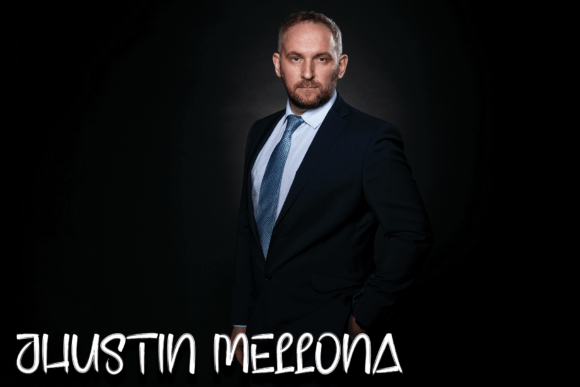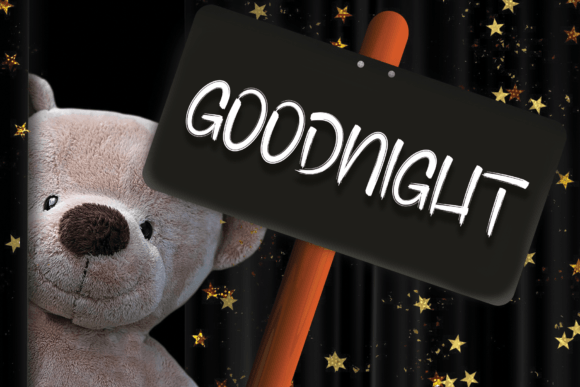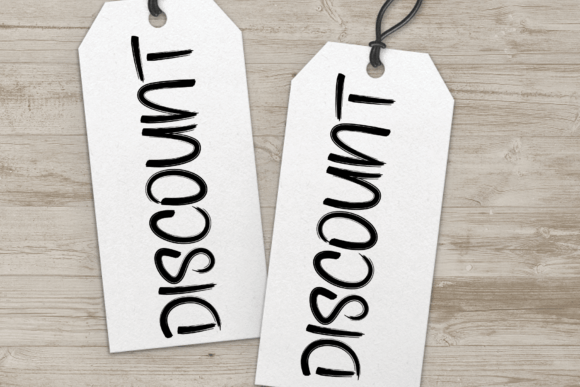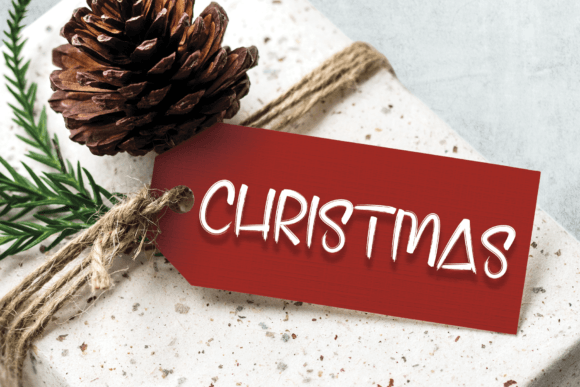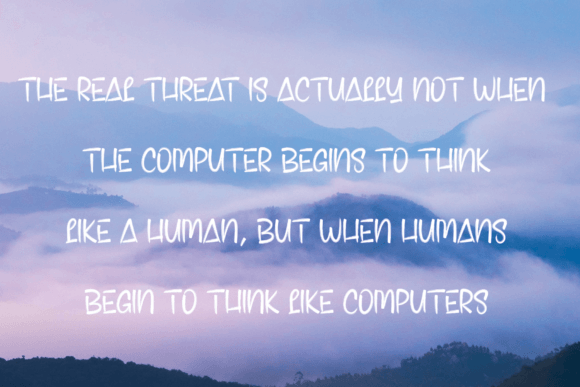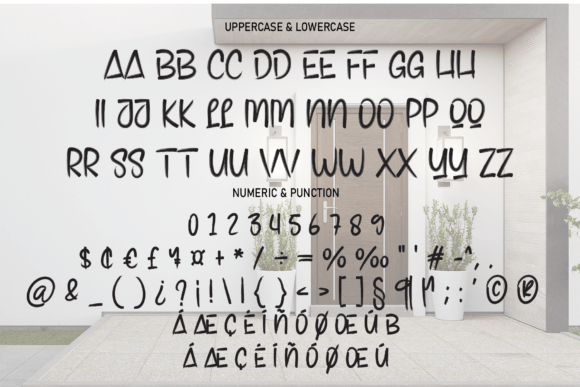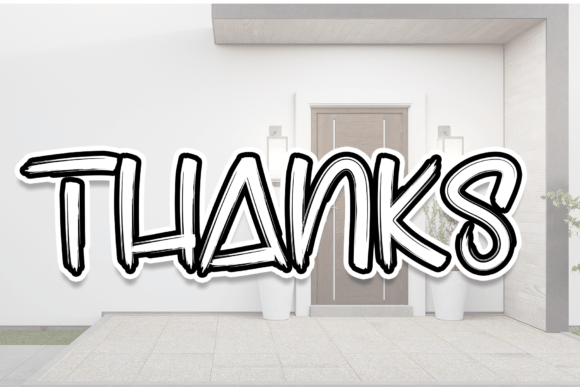
Handle Font
About Handle Font
Handle Font is a modern handwritten typeface that combines elegance with a natural handwritten touch. Its charming strokes and smooth curves make it a versatile choice for designers who want to bring authenticity and creativity into their projects. Whether you are designing for digital platforms or print media, Handle Font ensures that your work stands out with a personal and stylish appearance.
Elegant Style for Creative Projects
Handle Font has been crafted with a balance of sophistication and casual flow. Its handwritten nature makes it ideal for personal projects such as wedding invitations, greeting cards, and stationery. The font captures the beauty of hand lettering while maintaining a clean and professional look. Because of its modern vibe, it also works perfectly in logos, advertisements, and branding designs where personality is essential.
Designers looking for a typeface that feels fresh yet timeless will appreciate the versatility of Handle Font. It blends well with both minimalist and decorative layouts, giving you the freedom to use it across multiple styles and industries.
Perfect for Branding and Business Use
Businesses that want to build a unique identity can rely on Handle Font to add warmth and creativity to their branding. Its smooth curves and elegant forms make it suitable for logos, product packaging, and promotional materials. From boutique shops to modern online brands, this handwritten typeface delivers an approachable and stylish aesthetic.
For social media creators, Handle Font is a valuable asset. Its handwritten letters make posts, stories, and banners look more engaging, helping your content gain attention. Because it feels natural and artistic, audiences quickly connect with designs created using this font.
Ideal for Invitations and Stationery
One of the most popular uses of Handle Font is for wedding invitations and event stationery. The script style adds romance and personality to every piece, ensuring that invitations feel unique and memorable. Couples searching for the right typography to represent their big day will find that Handle Font balances elegance with readability.
Beyond weddings, the font can be used for birthday invitations, thank-you cards, and even business event stationery. The handwritten look communicates care and thoughtfulness, making every design feel personal.
Digital and Print Flexibility
Handle Font works seamlessly across both digital and print platforms. In digital design, it shines on websites, social media graphics, and online advertisements. For print, it maintains its clarity on packaging, labels, posters, and merchandise. Its flexibility makes it an excellent choice for designers who handle multiple types of projects.
Because of its modern handwritten style, Handle Font can also be combined with sans serif or serif fonts for contrast. Pairing it with a clean, minimal font enhances readability while maintaining a stylish balance in layouts.